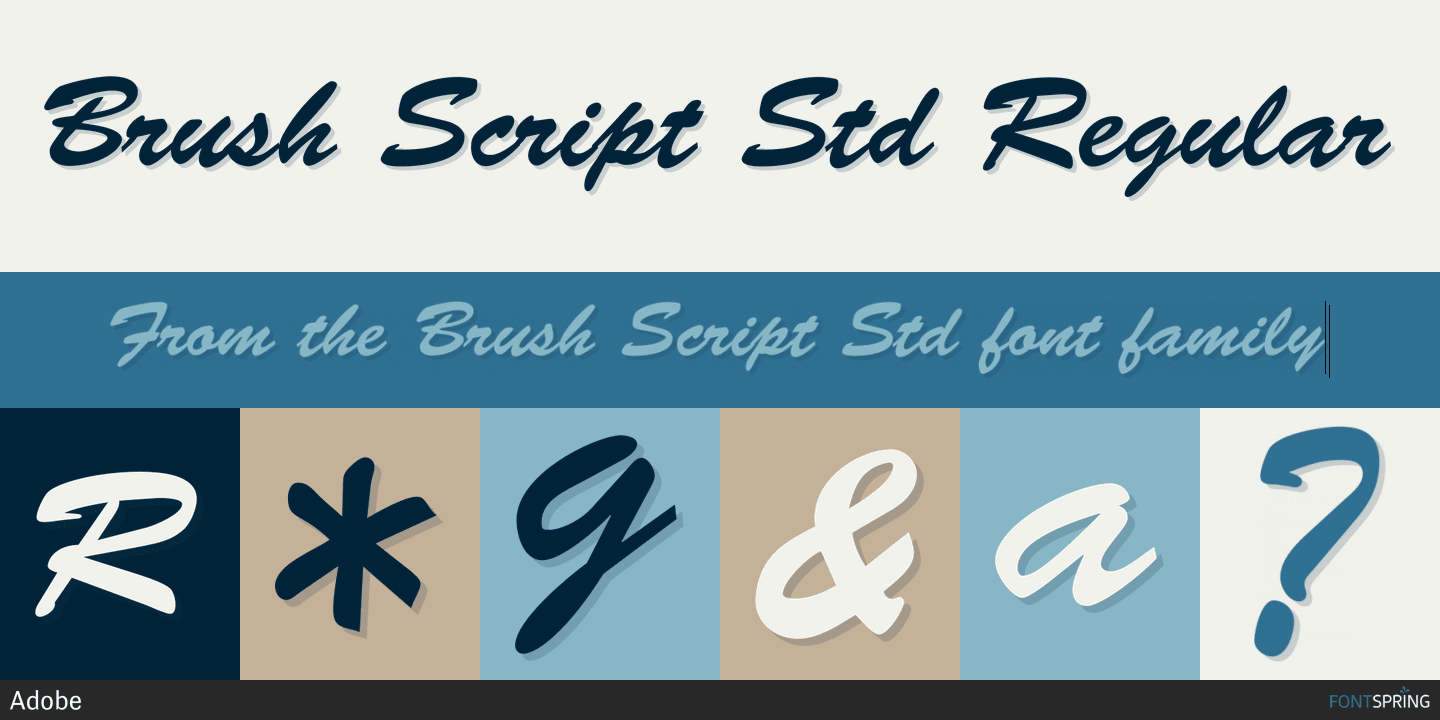
Brush Script Std is a brush script font published by Adobe.
Brush Script was designed in 1942 by Robert E. Smith for American Type Founders. It has a spontaneous, brush-written look, and the lowercase letters are connected as in handwriting. Brush Script is ideal for casual display work where an informal, handwritten style might be advantageous, such as posters and signage.